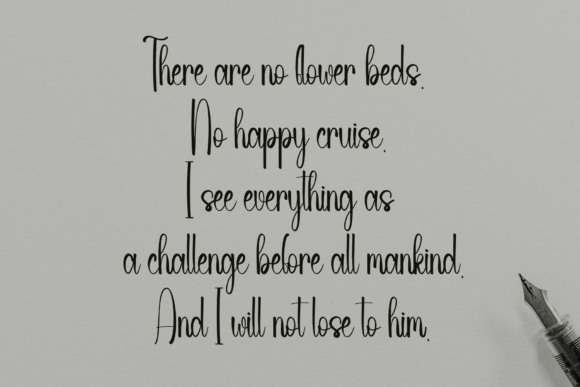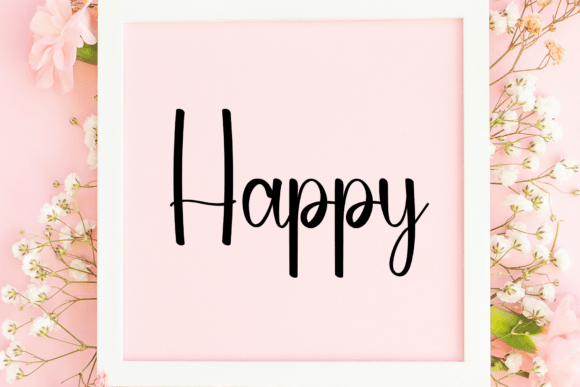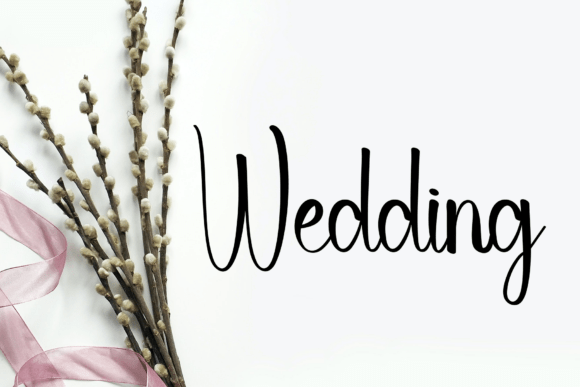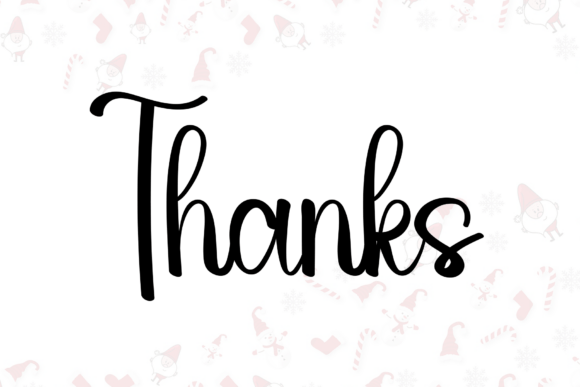
Introduction to Smile January Font
Have you ever been brainstorming a creative project and suddenly, the perfect font pops into your mind? It’s like a lightbulb moment, and everything starts to fall into place. For many designers, this moment is often sparked by discovering a unique and captivating font. One such font that has captured the hearts of designers is the Smile January Font.
This charming handwritten font exudes a sense of heartfelt perfection, making it a valuable design resource for any creative project. Its smooth strokes and organic lines evoke a relaxed atmosphere, perfect for branding, invitations, or social media graphics. With its transparent background and high-quality design, the Smile January Font is a must-have for designers looking to add a touch of personality to their work.
Key Features of Smile January Font
- High-quality design: This font features a unique, modern design that is ideal for various applications, including digital and print media.
- Unique characteristics: The Smile January Font features a playful and cheerful aesthetic, making it perfect for creative projects and design resources.
- Design versatility: This font is suitable for a wide range of creative projects, including graphic design, digital art, and print media.
Honest Review: Smile January Font
I recently came across the Smile January Font and was excited to dive in and see what it had to offer. As a designer, I’m always on the lookout for high-quality design resources to enhance my creative projects.
What works well with the Smile January Font is its versatility. The font is perfect for use in a variety of creative projects, from social media graphics to blog posts. The font is also very easy to use, with a clear and transparent background that makes it simple to overlay text and graphics.
- High-quality font with a clear and transparent background
- Perfect for use in social media graphics, blog posts, and other creative projects
Overall, I’m impressed with the Smile January Font. It’s a great addition to any designer’s toolkit and is sure to be a valuable resource for many creative projects.
⚠️ One limitation of the font is that it’s not available in as many styles as I would like. However, the font still offers a lot of flexibility and can be used in a variety of different ways.
Overall, I’d highly recommend the Smile January Font to any designer looking for a high-quality, versatile font for their creative projects. ✨